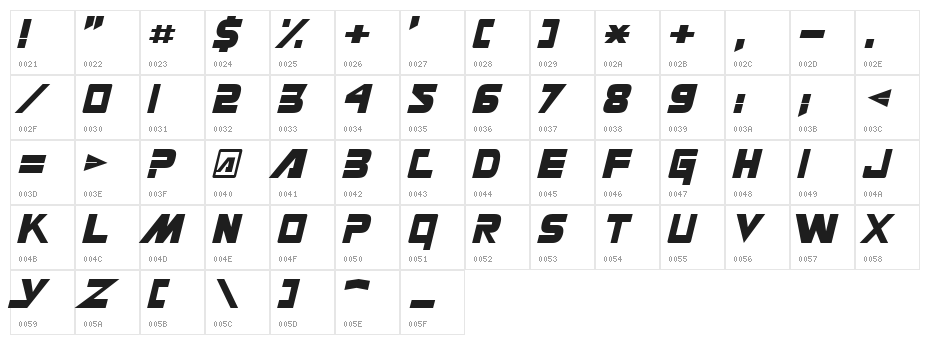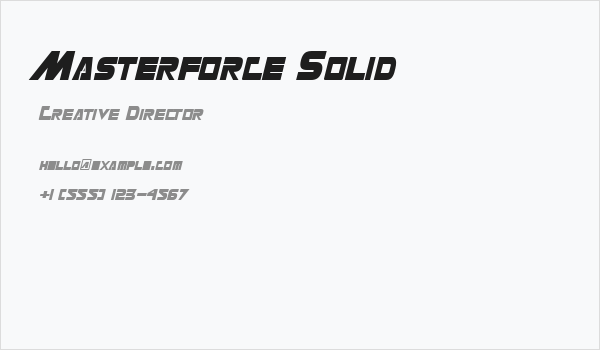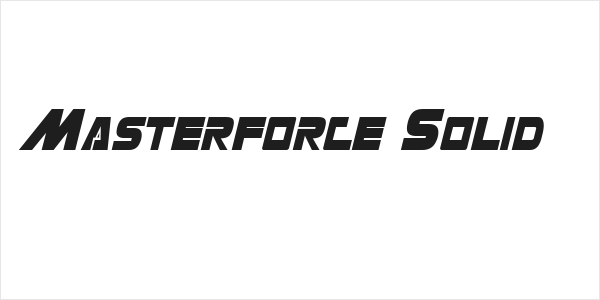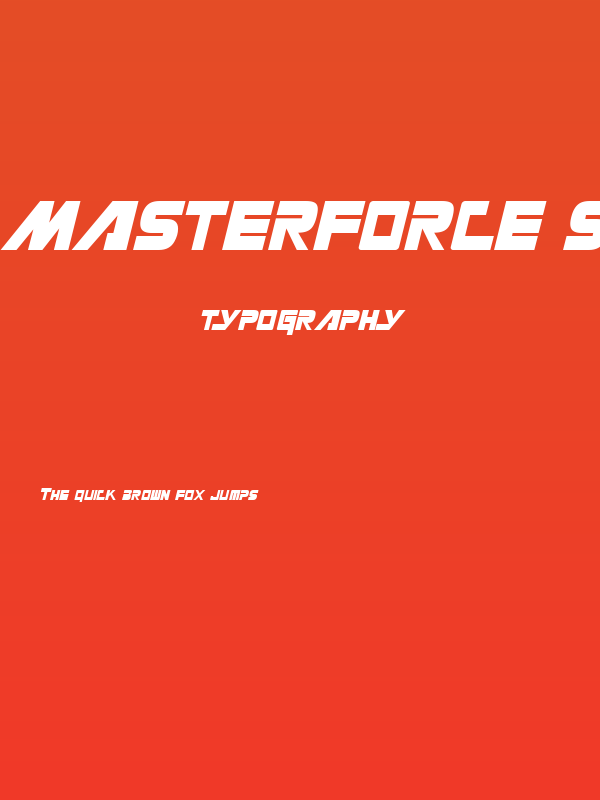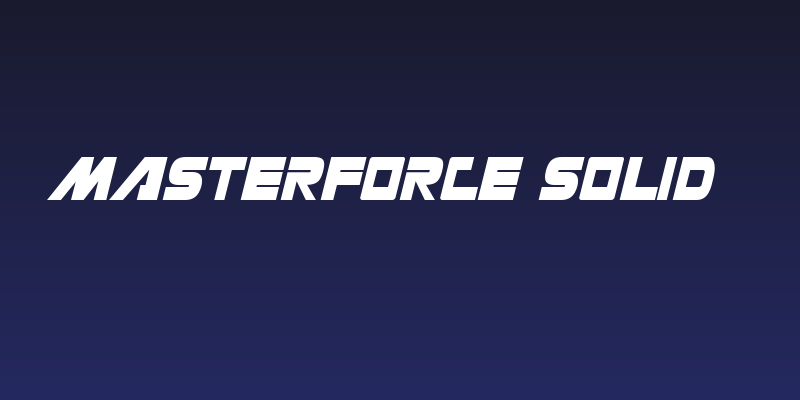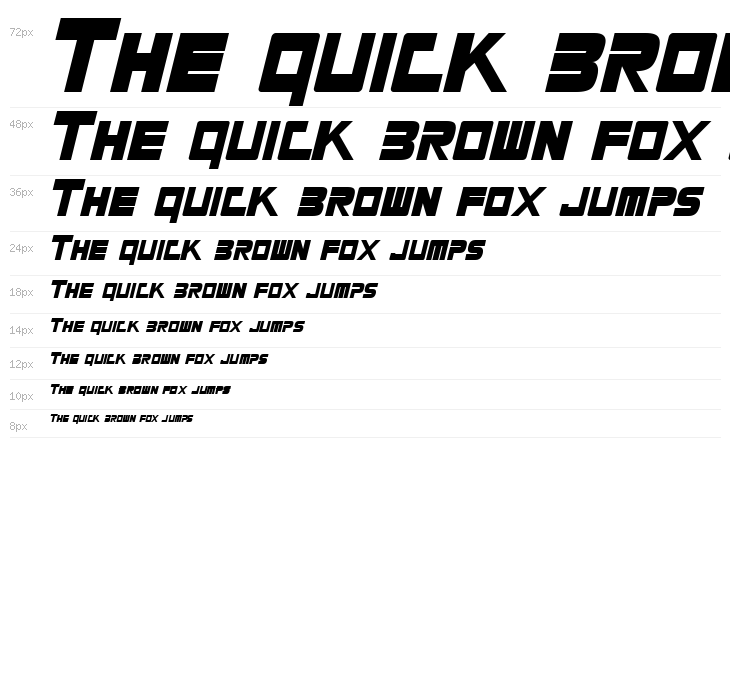
Masterforce Solid Font
Masterforce Solid Description
This font features a bold and dynamic style with a futuristic and angular design. The characters are sharply cut with a forward-leaning slant, giving a sense of motion and energy. The uppercase letters are particularly striking, with wide, blocky forms that convey strength and impact. The lowercase letters maintain the same angular aesthetic, ensuring consistency throughout the typeface. Numbers and special characters are equally bold, making them stand out in any context. The overall design is reminiscent of sci-fi and tech themes, making it ideal for projects that require a modern and edgy look.
| Overall Style | Futuristic, Modern |
| Proposed Projects | Ideal for sci-fi themed posters, tech branding, video game titles, and futuristic product packaging. |